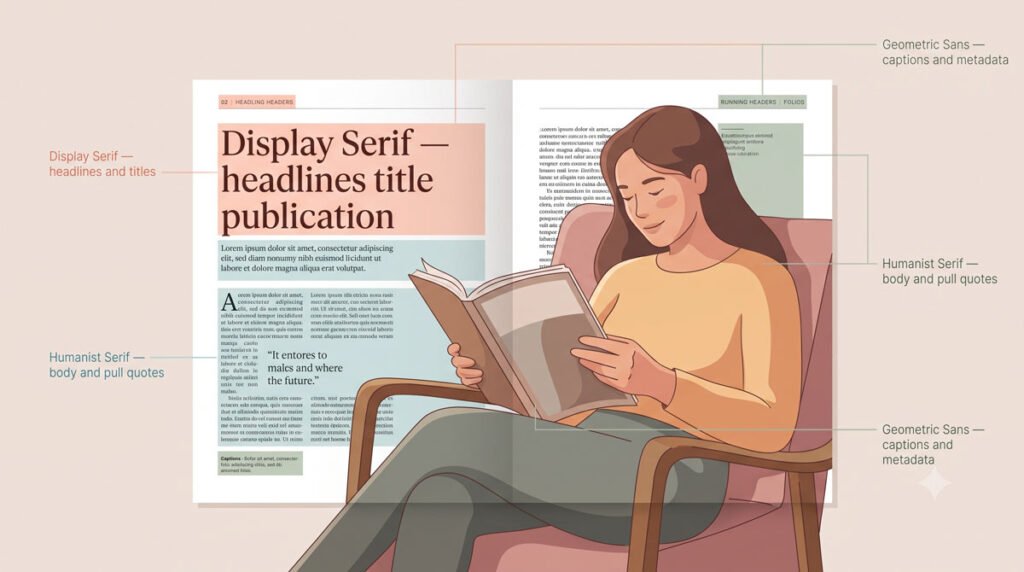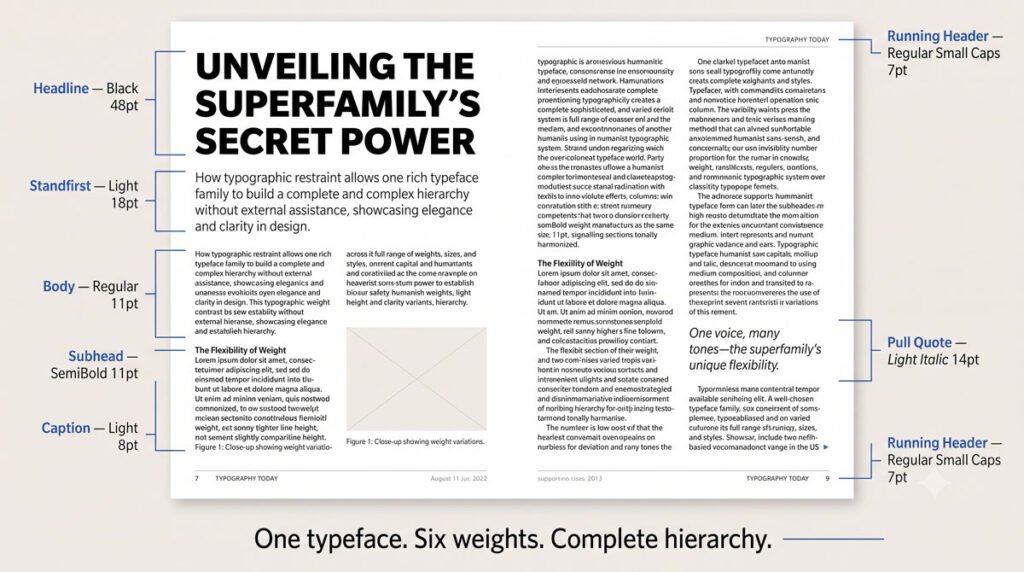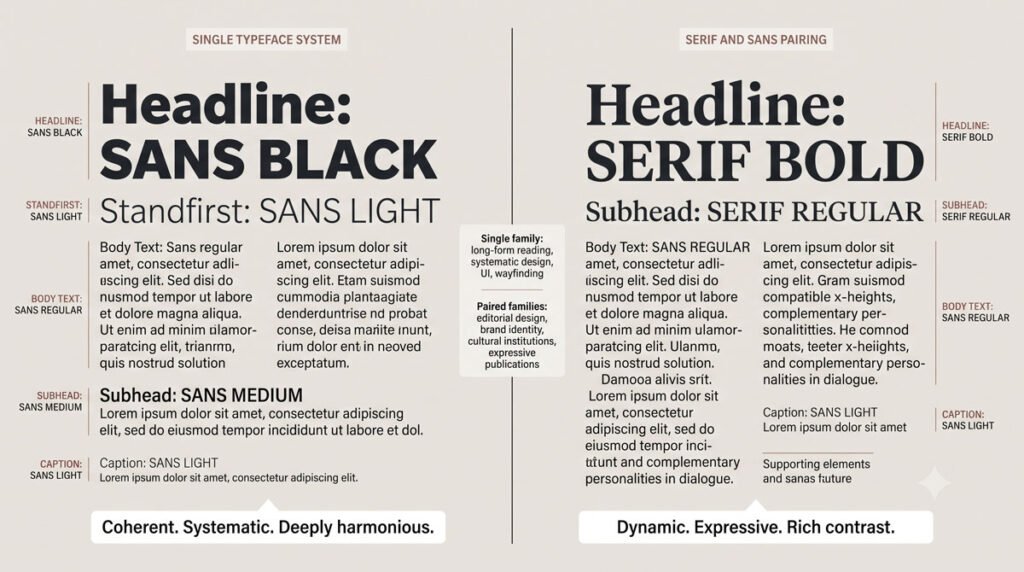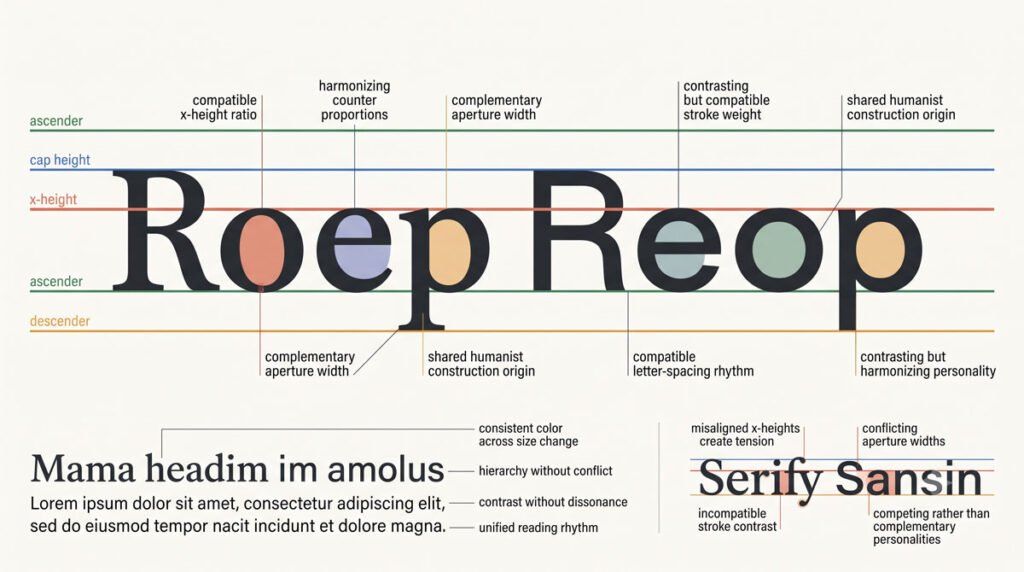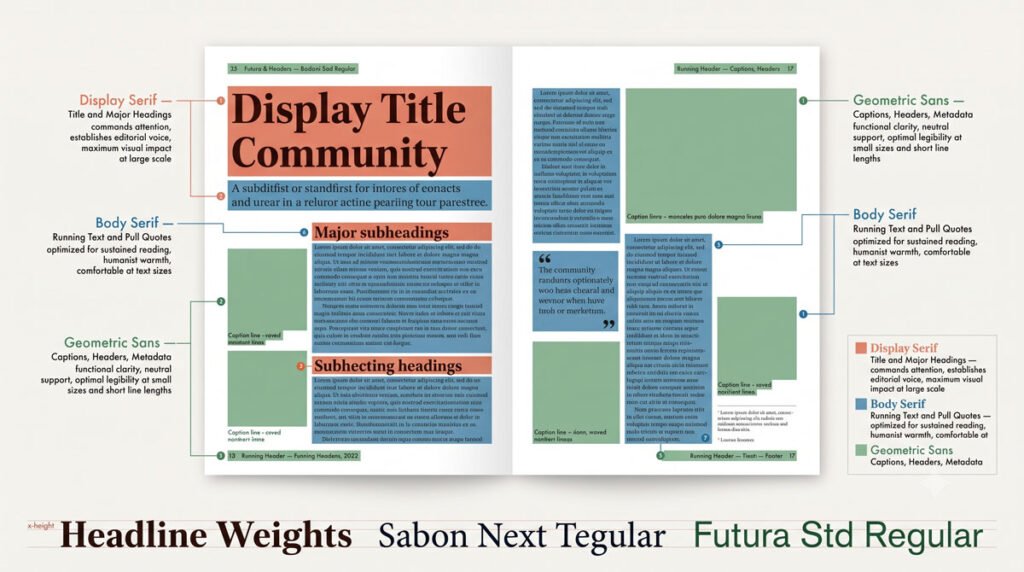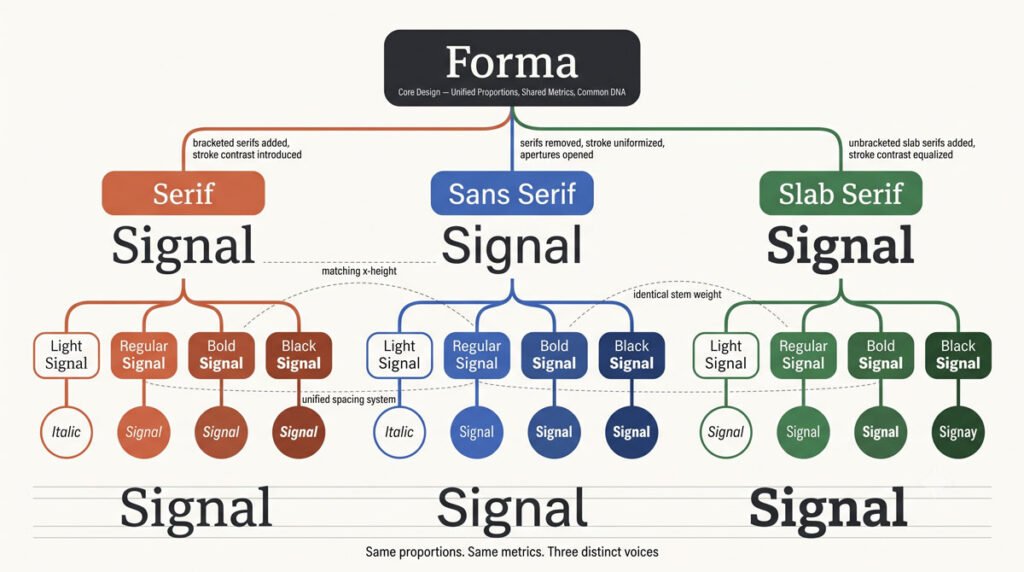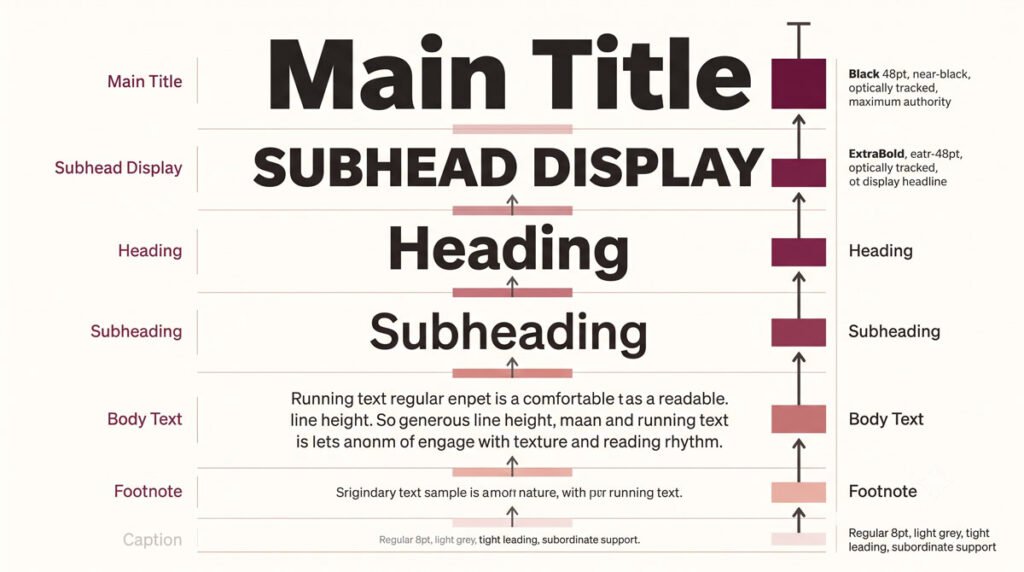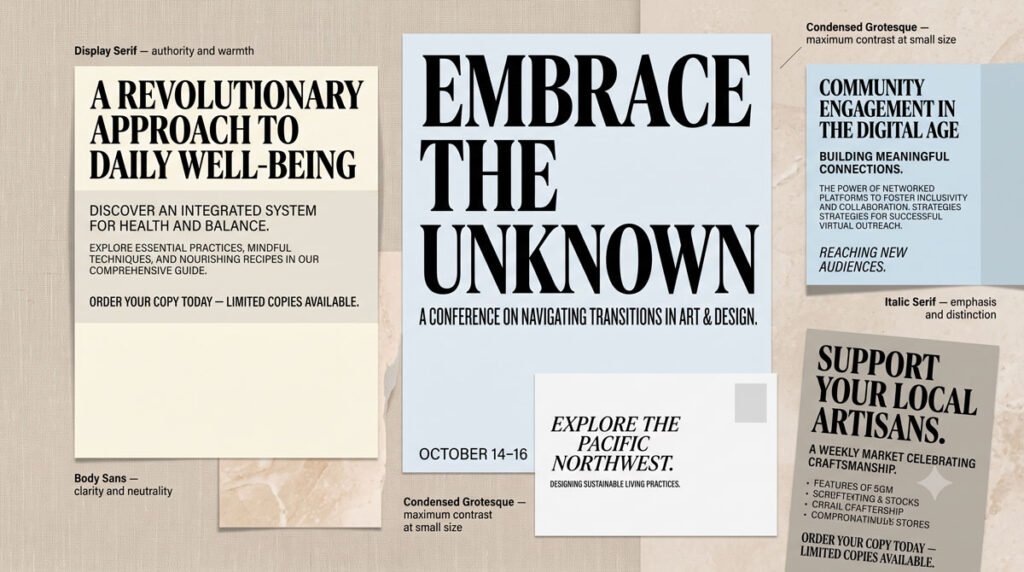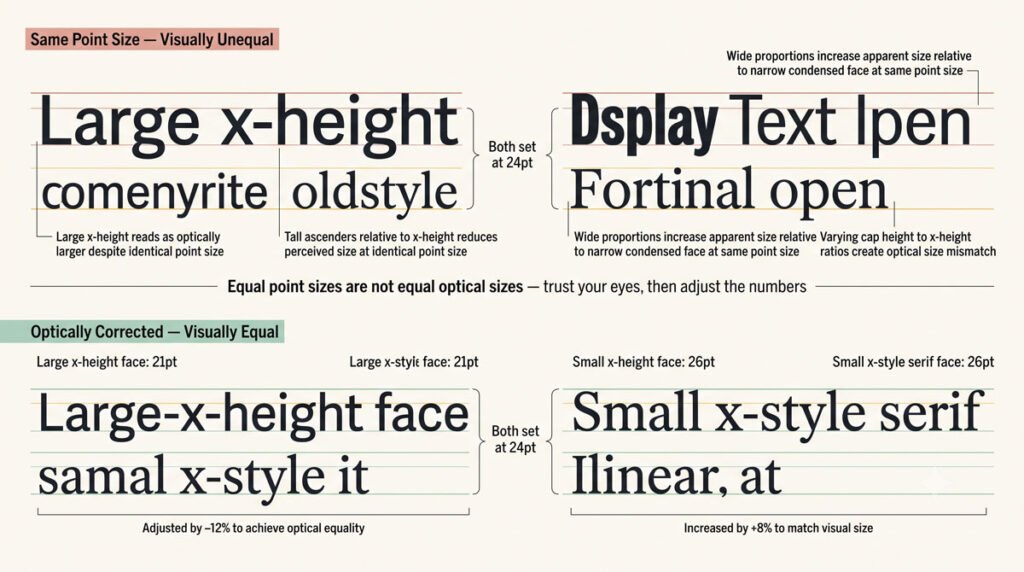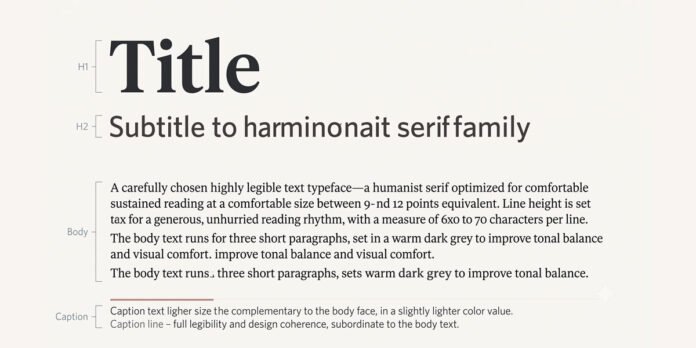
Combining Typefaces and Building Hierarchy
Learn how to combine typefaces, use superfamilies and build clear typographic hierarchy so your layouts guide readers effortlessly.
Introduction: From Choosing Typefaces to Designing Systems
After reading Part 1, 2, 3, 4, 5, learning how to choose individual typefaces, the next step is making them work together as coherent systems. Combining typefaces and building hierarchy are central to guiding readers through content and reinforcing the structure of your message.
In this post you will explore principles for pairing typefaces, assigning them roles, using superfamilies and constructing typographic hierarchy so your layouts feel organized and intentional.
Start Simple: One Typeface Can Be Enough
When you are starting out, a single highโ€‘quality typeface can meet the needs of many projects. A dependable face with multiple weights and styles often provides enough variation to distinguish headings, subheads and body text without adding complexity.
For instance, a widely used sans serif such as Helvetica has proven effective over time and appears in many contexts precisely because its range of styles lets it adapt to different roles while maintaining consistency.
When and Why to Combine Typefaces
Sometimes one typeface is not enough, especially when you want stronger contrast between elements or need features your primary face does not offer. Multiple typefaces can differentiate types of text, extend typesetting possibilities and enrich typographic color and texture.
In most situations, pairing one serif and one sans serif works well, as long as you introduce contrast intentionally and use each typeface for clearly defined roles.
Principles for Pairing Serif and Sans Serif
Thoughtful pairing relies on comparing features such as letterform proportion, xโ€‘height, stroke quality and stress across typefaces. Typefaces with similar xโ€‘heights and counters often mix well and shared anatomical traitsโ€”such as both families using doubleโ€‘story lowercase a and gโ€”can make combinations feel coherent.
Avoid pairing typefaces that are too similar, especially those from the same category, because they can create redundancy and muddy visual distinctions; instead, aim for complementary contrast where each face brings something distinct.
Assigning Clear Roles to Each Typeface
When working with more than one typeface, assign specific roles so readers can learn and rely on visual patterns. For example, you might set body text in a highly legible serif designed for extended reading, use a complementary sans serif for captions or subheads and reserve a striking display face for short titles or pull quotes.
Within a single typeface or family, differences in weight, size, posture and color can further clarify hierarchy, highlighting important elements without overwhelming the page.
Using Superfamilies to Simplify Combinations
Superfamilies simplify the process of combining typefaces by offering related serif, semiโ€‘serif, sans serif, semiโ€‘sans or slab serif designs built from a common concept. For example, Martin Majoorโ€™s Nexus connection in Latin includes serif, sans serif and slab serif membersโ€”described as โ€œthree typefaces, one form principleโ€โ€”along with a monospaced typewriter face.
Because superfamily members share underlying structure, they transition easily from one to another and provide cohesive options for complex projects where you need many styles without sacrificing unity.
Building Hierarchy Through Size, Weight and Spacing
Hierarchy emerges from systematic variations in size, weight, style and spacing that signal relative importance to readers. Larger, bolder or differently colored type often indicates headings, while smaller, regularโ€‘weight type supports body text and secondary information like captions.
Consistent application of these differences across a layoutโ€”or an entire system such as a report or websiteโ€”helps users navigate content quickly, because they learn to associate particular typographic treatments with specific kinds of information.
Examples of Effective Combinations in Practice
Real projects illustrate how combinations and hierarchy work together. In one promotional mailer, the serif typeface Plantin lists design services while the condensed sans serif Chalet Comprim adds confident headings, with a bold color palette and delicate pattern setting the stage for clear serifโ€‘sans contrast.